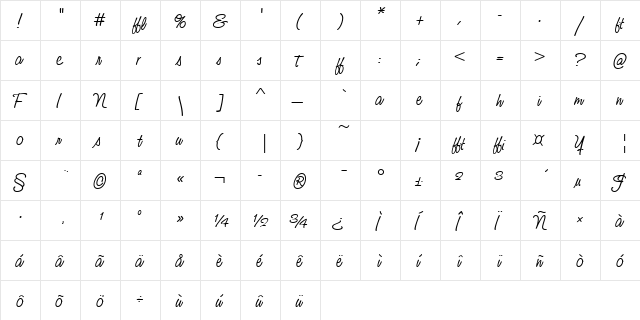
Studio Script Alt Two ITC TT Regular
Design Context for Studio Script Alt Two ITC TT Typeface
Studio Script Alt Two ITC TT flows with the natural rhythm of handwritten lettering, making it ideal for designs that call for warmth and personal expression.
Font Pairing: Combine Studio Script Alt Two ITC TT with a simple geometric sans for maximum contrast — the tension between flowing curves and clean structure is a classic typographic pairing.
Pro Tip: Use Studio Script Alt Two ITC TT for short runs of text — names, titles, or taglines. Extended body copy in script faces tires the eye quickly.